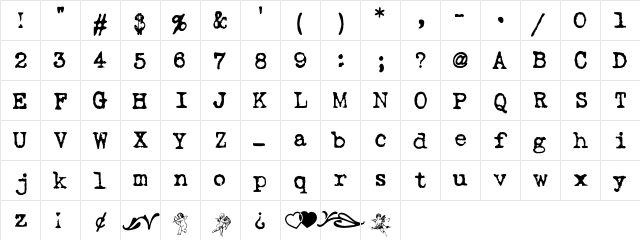
LoveLetterTypewriter Regular
Design Context for LoveLetterTypewriter Typeface
LoveLetterTypewriter brings the precise, column-aligned rhythm of monospaced typography to designs that value technical clarity and systematic order.
Pro Tip: Use LoveLetterTypewriter with slightly increased line-height for extended reading — fixed-width spacing can feel dense in longer passages without extra breathing room.